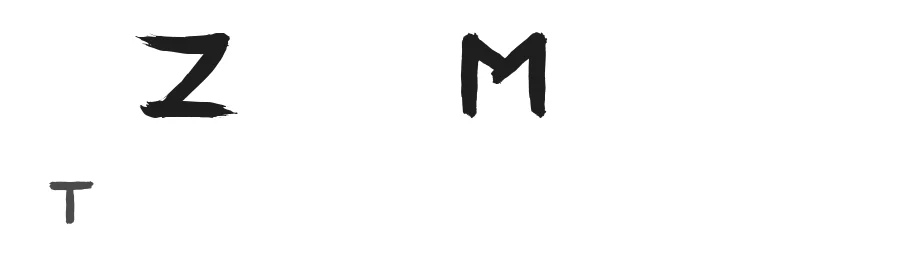
About Trasher 2 Font
Trasher 2, designed by Niels Visser, is a script-handwritten typeface that channels raw street art energy with its bold, edgy graffiti aesthetic. The typeface captures the spontaneous character of hand-painted lettering, bringing an authentic urban edge to any project that demands attitude and visual punch. With its aggressive letterforms and free-flowing movement, Trasher 2 evokes the energy of untamed spray paint strokes while maintaining enough legibility for real-world use.
Where edgy energy matters most, this typeface excels: in band posters and album artwork for music labels and DIY venues, skateboard graphics and apparel designs for streetwear brands, sticker and vinyl decal projects for independent makers, and underground event announcements seeking maximum visual impact. Supporting 186+ Latin-based languages with its 163-glyph character set, Trasher 2 reaches across cultural boundaries, equally at home in a New York subway sketch or a Tokyo street art collective.
Trasher 2 Font is a script font that shines as a display or heading face. Pair it with a clean sans-serif or serif font for body text β the contrast creates a clear hierarchy while the two styles stay balanced and easy to read.